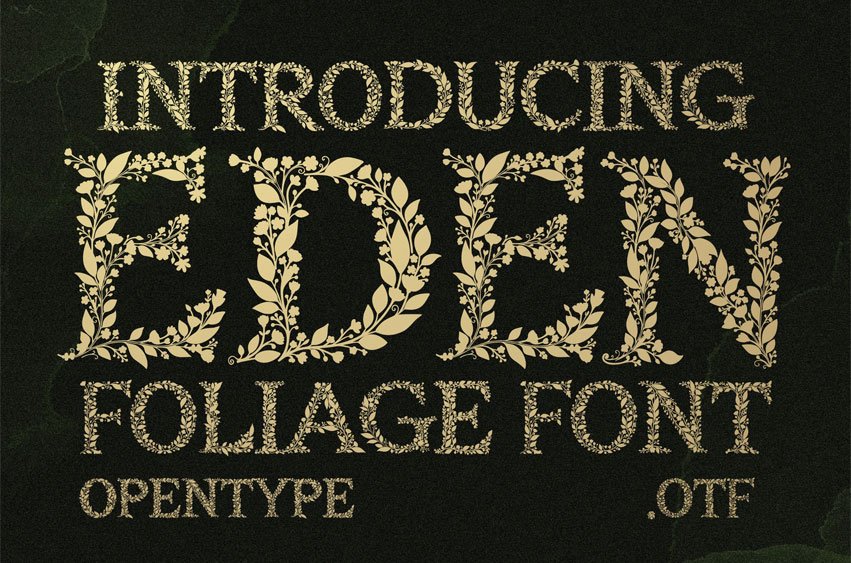
Eden Font is a decorative font made entirely out of leaves and vines. If you’re looking to add a natural vibe to your projects without having to hand-draw individual leaves, this font does the heavy lifting for you. I designed this to look like an overgrown garden in the shape of letters. It’s detailed, organic, and perfect for when you need your text to be the main focus.
It’s a display font, which means it looks best when you use it big—like for a headline or a logo. It’s a little too detailed for small body text, but it really shines on posters or invitations (think wedding stationery).
This Font Is Perfect For:
• Wedding Stationery: Create breathtaking save-the-dates, invitations, and table numbers for garden, rustic, or bohemian weddings.
• Branding & Logos: Ideal for florists, landscape architects, organic skincare brands, herbalists, and sustainable clothing lines.
• Editorial Design: Use it for drop caps in magazines, chapter headings in fantasy novels, or titles for gardening books.
• Event Signage: Perfect for welcome signs, seating charts, and menu headers.
• Greeting Cards: Design beautiful seasonal (summer and spring) cards.